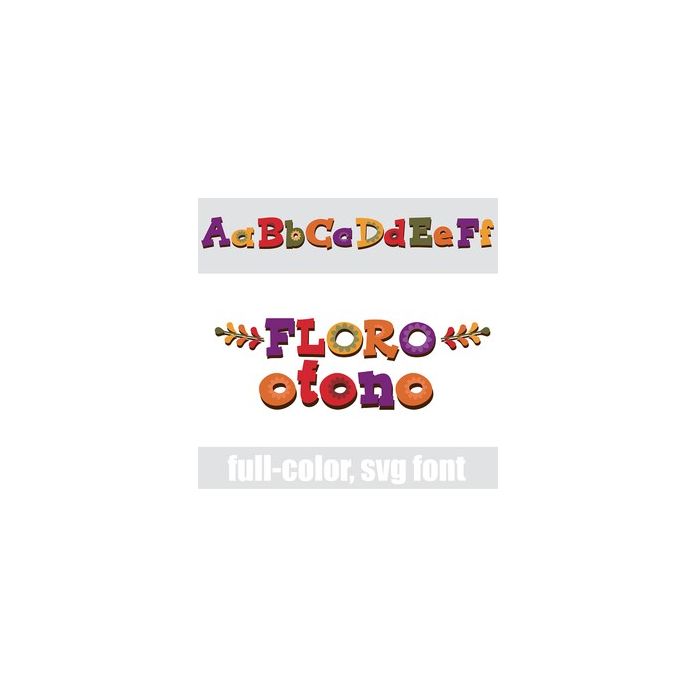
This full-color font features blocky lettering with a shadow and a few colorful autumn flowers. There is an alt case w/ additional colors you can access through your system or Silhouette's glyph map.